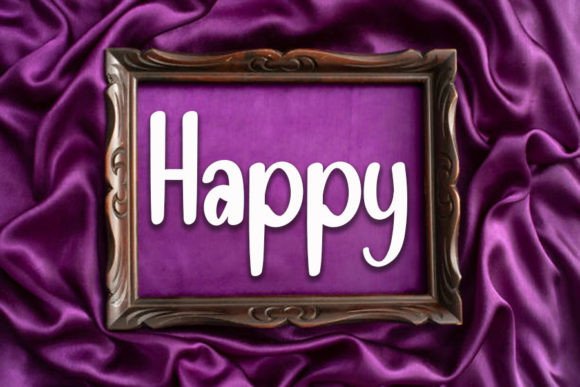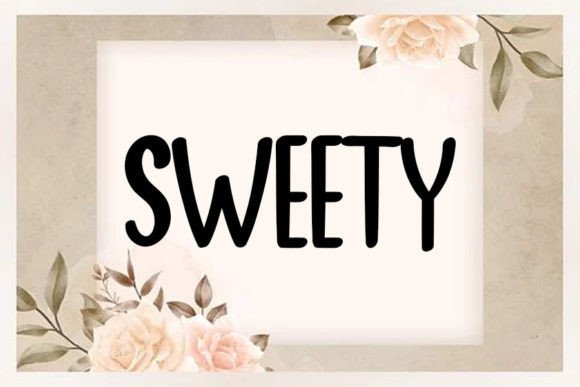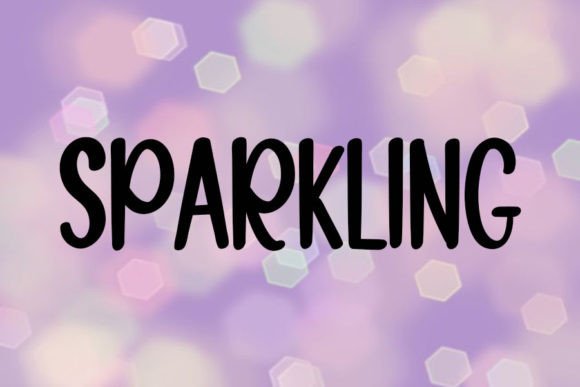
Introducing Barbie Font: The Magical Handwritten Font for Elegant and Quirky Designs
Are you a designer or crafter looking for a font that adds a touch of elegance and whimsy to your projects? Look no further than Barbie Font, a beautiful handwritten font that is perfect for logos, branding, social media, and DIY crafts. In this article, we’ll take a closer look at the features and benefits of Barbie Font, and explore how you can use it to elevate your designs.
What is Barbie Font?
Barbie Font is a carefully crafted handwritten font that combines elegance and quirkiness. It’s clean, yet playful, making it an excellent choice for a wide range of design projects. Whether you’re creating a logo, branding materials, social media graphics, or DIY crafts, Barbie Font is the perfect fit.
Key Features of Barbie Font
- Handwritten elegance: Barbie Font is a handwritten font that exudes elegance and sophistication. Its smooth, flowing lines make it perfect for designs that require a touch of refinement.
- Clean and quirky: What sets Barbie Font apart is its unique blend of cleanliness and quirkiness. It’s not too formal, but not too casual either, making it an excellent all-around font.
- Versatile: Barbie Font is incredibly versatile and can be used for a wide range of design projects, from logos and branding to social media graphics and DIY crafts.
Benefits of Using Barbie Font
So, why should you choose Barbie Font for your design projects? Here are just a few benefits:
- Adds a personal touch: Barbie Font’s handwritten elegance adds a personal touch to your designs, making them more relatable and engaging.
- Stand out from the crowd: With its unique blend of cleanliness and quirkiness, Barbie Font helps your designs stand out from the crowd and grab attention.
- Easy to read: Despite its elegant and playful nature, Barbie Font is incredibly easy to read, making it perfect for body text and headlines.
Using Barbie Font for Design Projects
So, how can you use Barbie Font in your design projects? Here are a few ideas to get you started:
- Logos and branding: Use Barbie Font to create elegant and memorable logos and branding materials that reflect your brand’s personality.
- Social media graphics: Add a touch of whimsy to your social media graphics with Barbie Font, making them more engaging and shareable.
- DIY crafts: Barbie Font is perfect for DIY craft projects, such as making signs, cards, and other handmade items.
Tips for Getting the Most Out of Barbie Font
To get the most out of Barbie Font, here are a few tips:
- Experiment with colors: Barbie Font looks great in a variety of colors, so don’t be afraid to experiment and find the perfect hue for your design.
- Play with font sizes: Barbie Font is versatile and can be used at a range of font sizes, from small body text to large headlines.
- Pair with other fonts: Barbie Font pairs well with other fonts, so try combining it with a sans-serif font for a bold and playful look.
In conclusion, Barbie Font is a magical handwritten font that adds a touch of elegance and whimsy to any design project. Its unique blend of cleanliness and quirkiness makes it perfect for logos, branding, social media graphics, and DIY crafts. With its versatility, ease of use, and range of benefits, Barbie Font is an excellent choice for designers and crafters looking to elevate their designs.